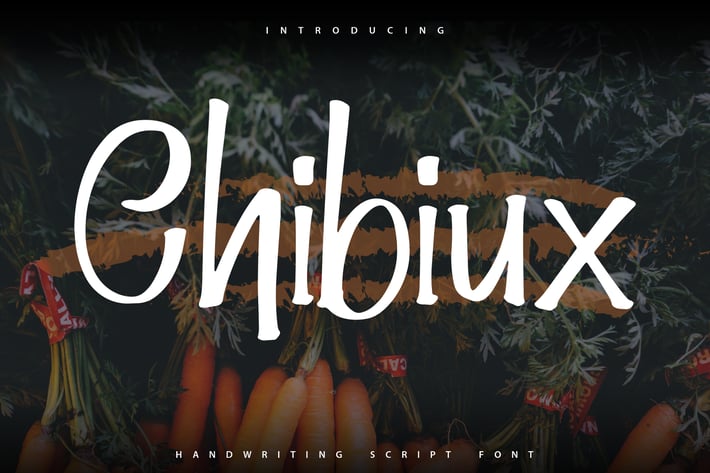
Chibiux | Handwriting Script Font
Chibiux | Handwriting Script Font with a calligraphy style, So beautiful on invitation like greeting cards, branding materials, business cards, quotes, posters, and more!